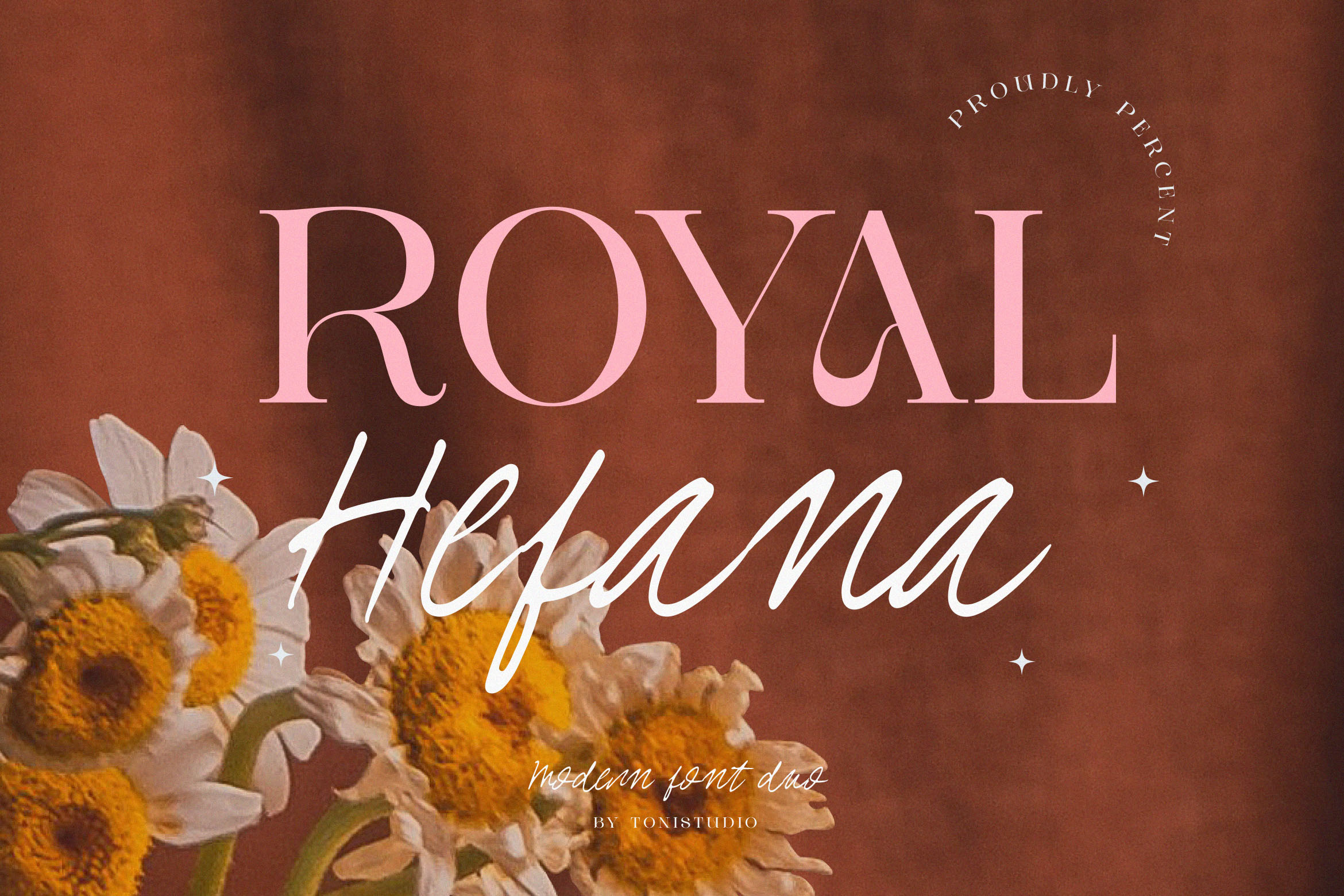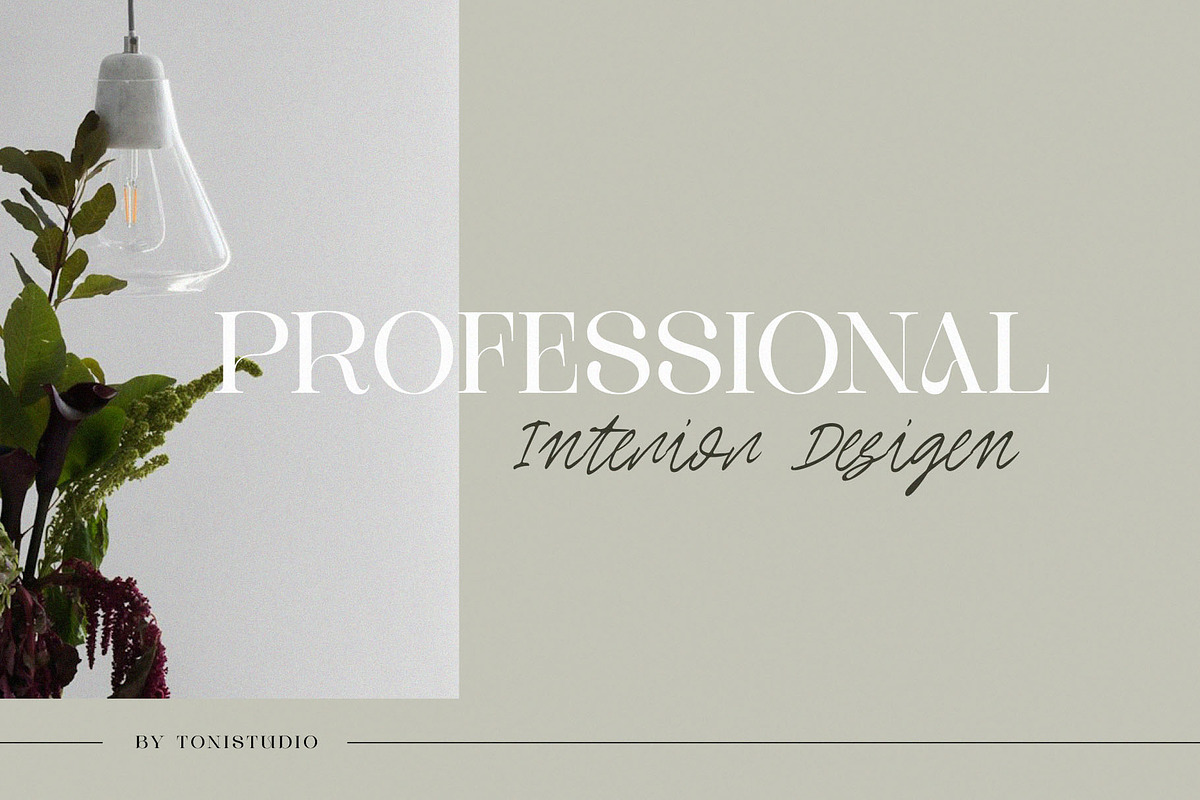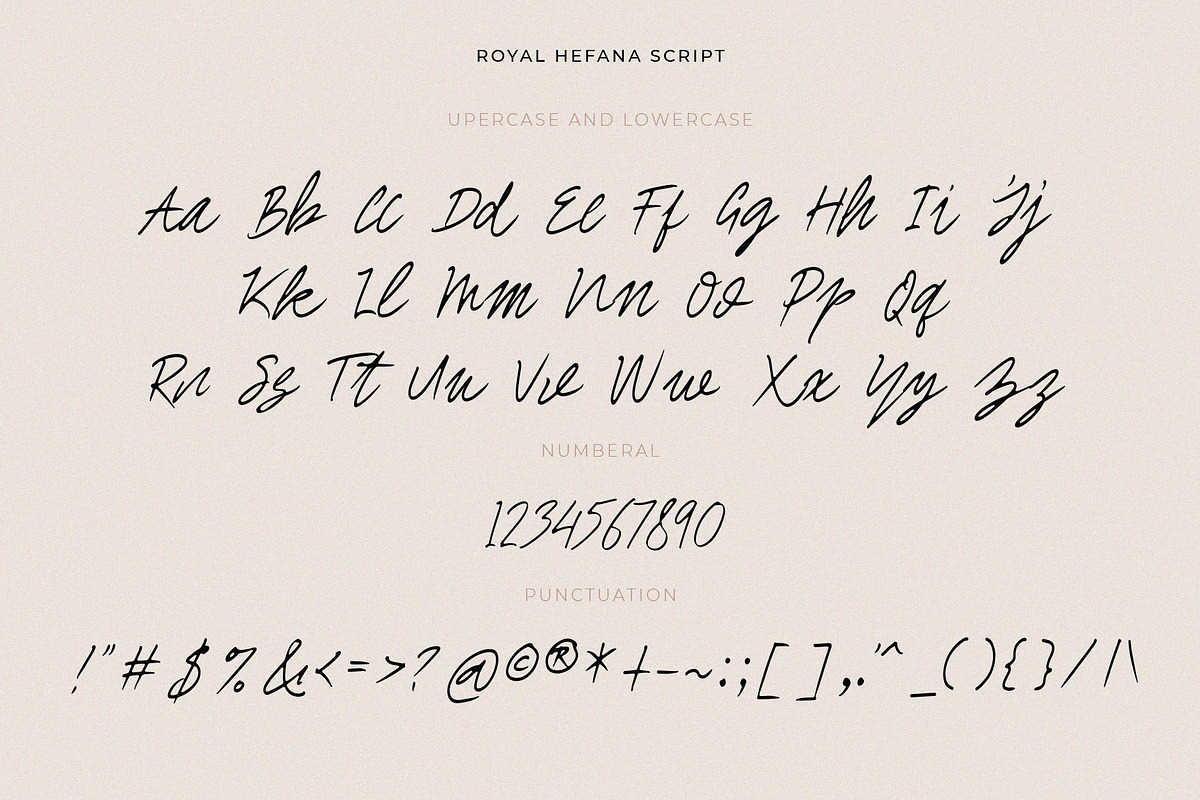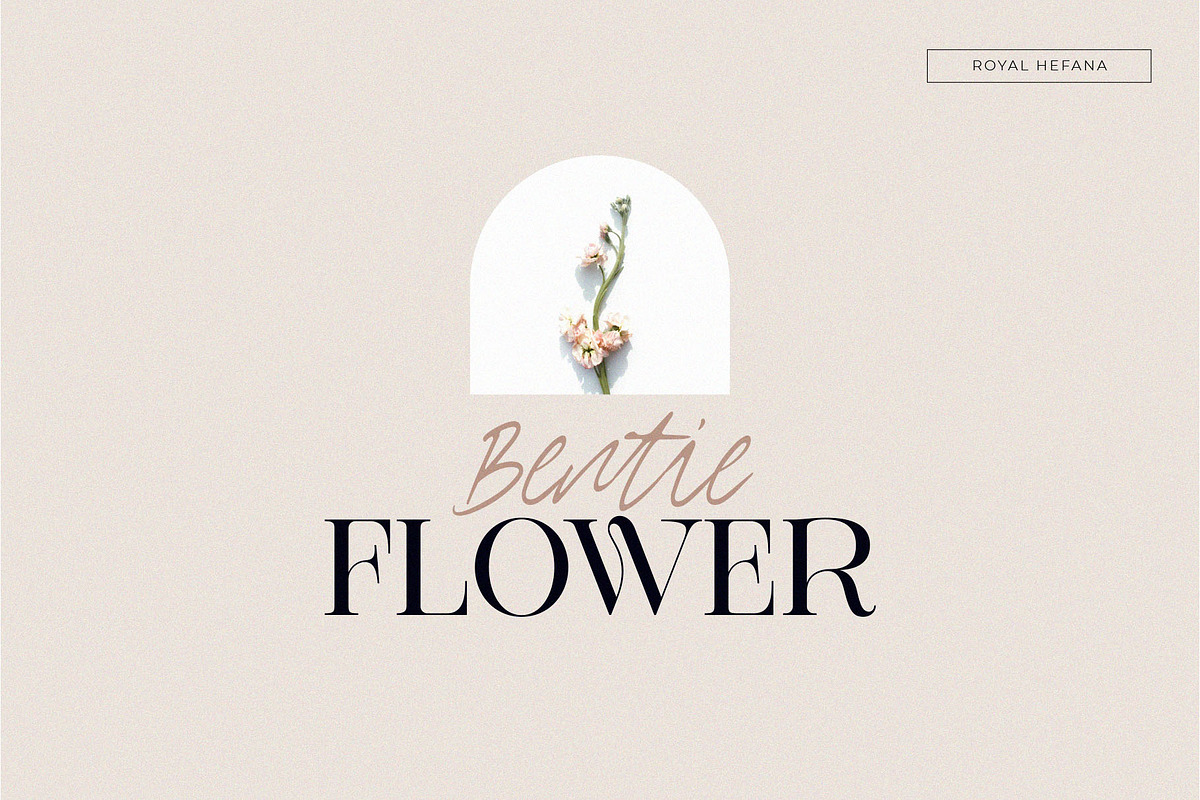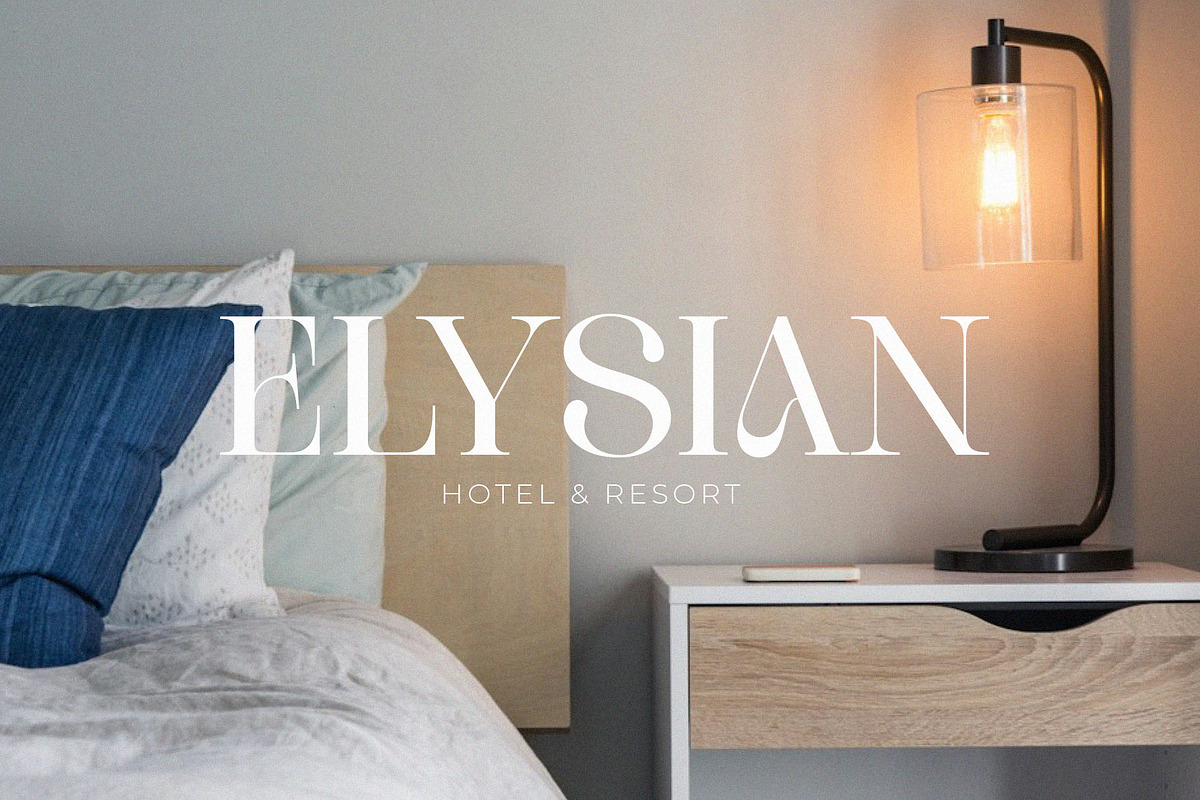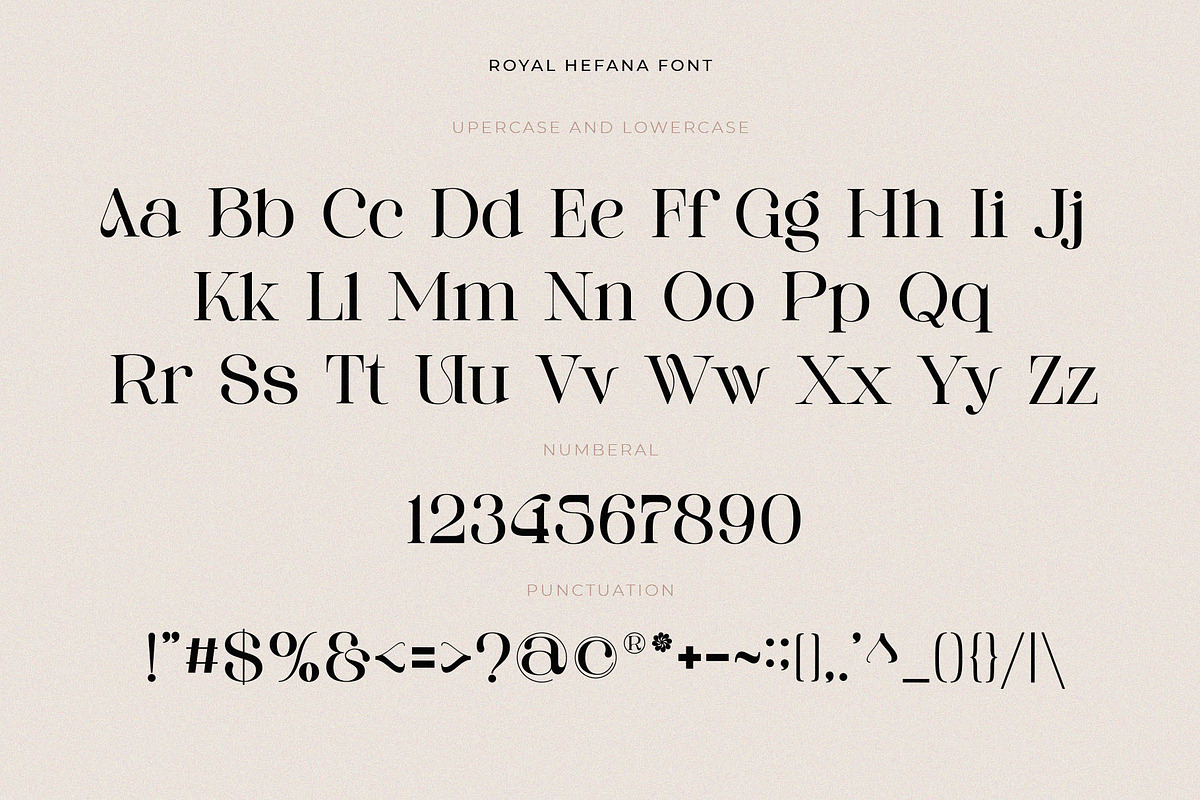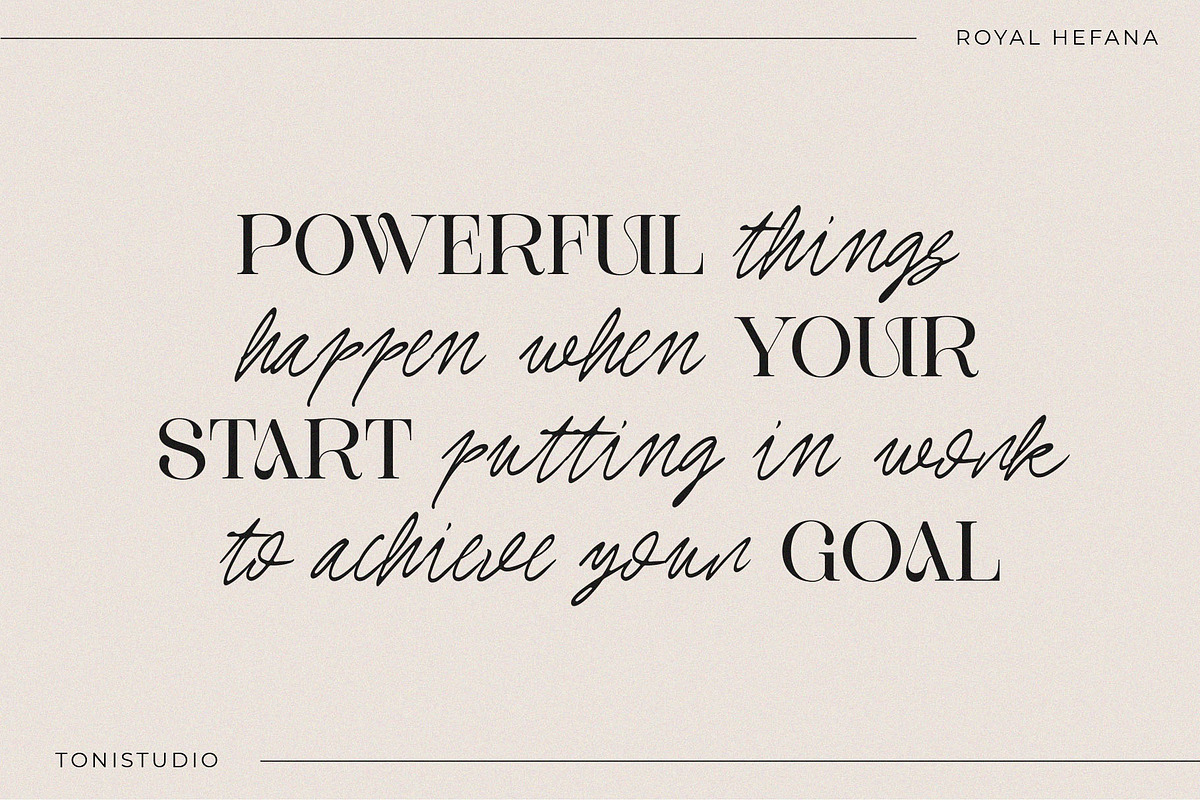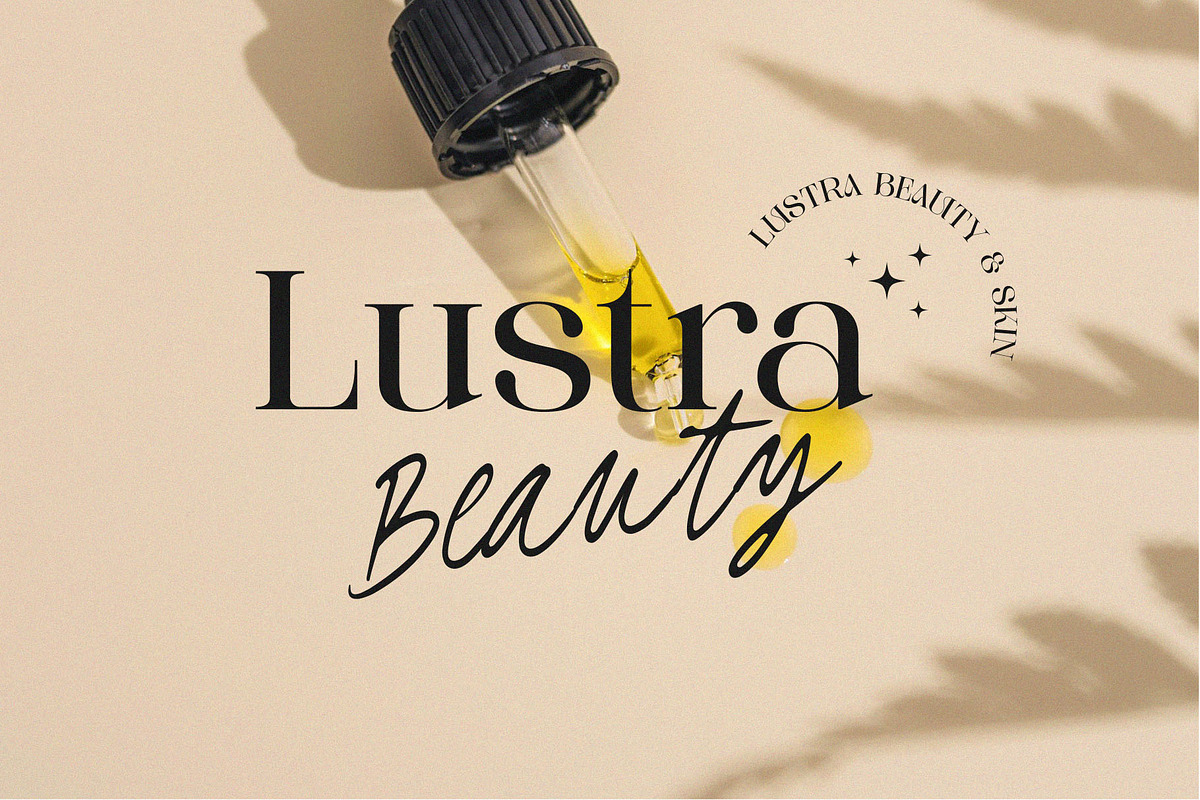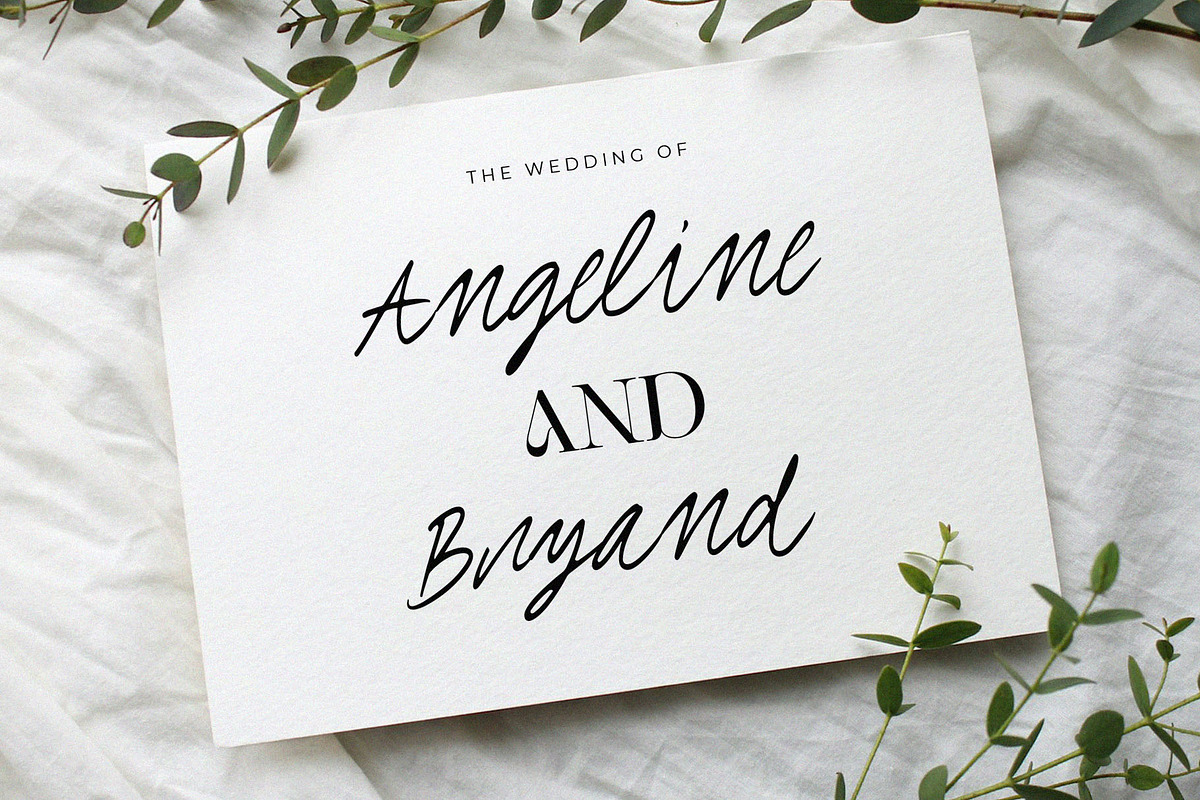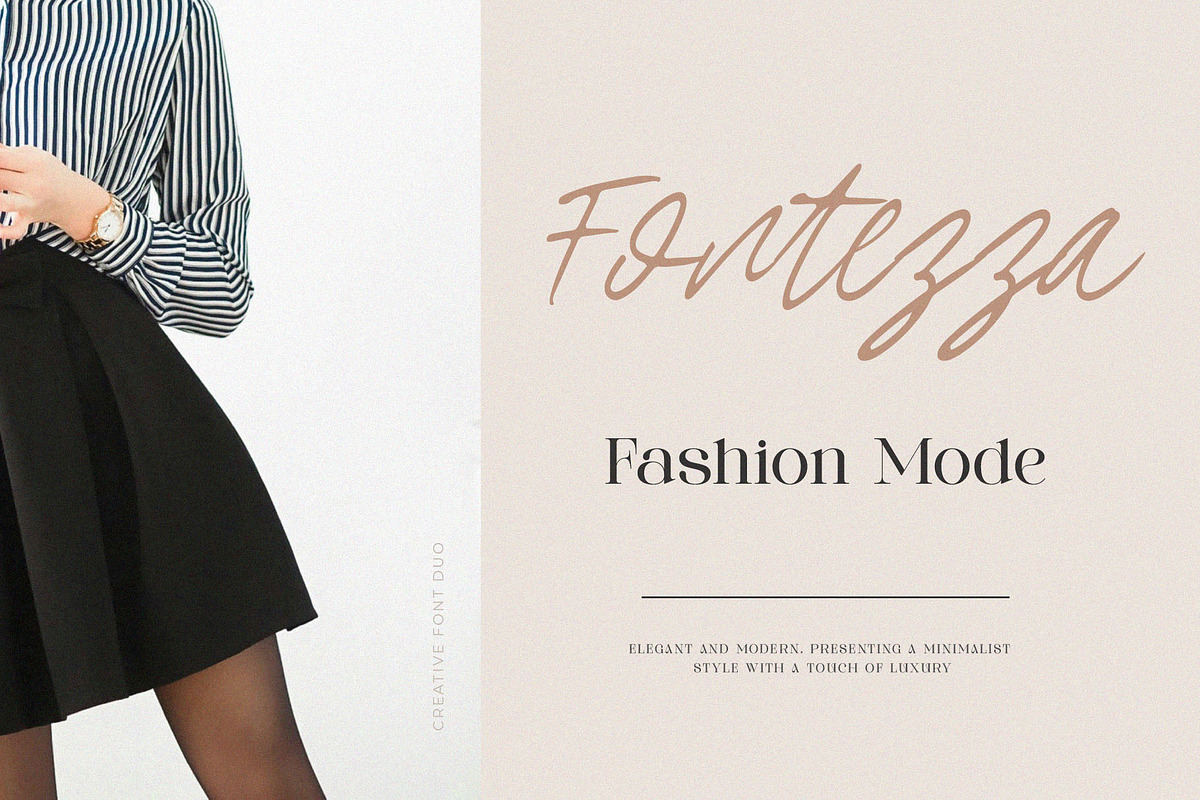
Royal Hefana || font duo
Royal Hefana is a luxurious duo font consisting of a classic, elegant serif and a graceful signature script. This combination is designed to create a perfect harmony of boldness and softness, perfect for creating classy and memorable designs. With a combination of bold lines and soft curves, this font strikes a perfect balance between traditional elegance and modernity. Royal Hefana stands out even more when combined with a signature script font, creating a harmonious and classy combination. This combination makes it an ideal choice for branding, wedding invitations, premium logos, product packaging, and fashion editorials. The combination of Royal Hefana Duo presents a sophisticated and high-end aesthetic, making it a perfect choice for designers who want to create an elegant, luxurious, and classy look.
- Serif and signature script
Use Royal Hefana to create a luxurious and professional impression in every design.